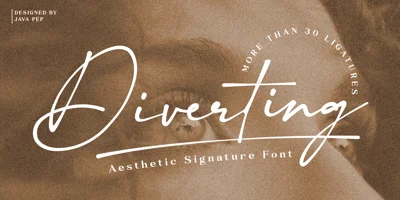
Diverting Font
Diverting Font is perfect for entertainment venue branding, comedy club marketing, amusement park signage, recreational activity promotions, diversion therapy materials, and engaging entertainment campaigns. Its captivating character makes it ideal for entertainment companies, recreational facilities, comedy performers, leisure activity organizers, and any application requiring attention-grabbing typography that conveys entertainment value, engaging diversion, and the irresistible appeal of fun activities that capture attention and provide delightful distraction.
Diverting Font is exciting because it embodies the captivating power and engaging appeal of quality entertainment through dynamically crafted letterforms that redirect attention and create compelling visual interest. Its diverting proportions and entertainment-inspired details reflect the magnetic pull of engaging activities and the satisfying redirection of focus toward enjoyable experiences, making it perfect for brands seeking to capture audience attention and provide meaningful diversion. The font's diverting character transforms communications into invitations to engaging entertainment.
Diverting Font family includes attention-capturing weight variations typically featuring Light, Regular, Medium, and Bold options with engaging styling that maintains entertainment authenticity. The family often incorporates entertainment symbols, diversion elements, and recreational characters designed for leisure applications, providing designers with comprehensive tools for creating authentic, entertainment-focused typographic compositions.
When selecting entertainment diversion typography solutions, Diverting Font represents an exceptional choice for recreational and entertainment projects. This captivating typeface brings instant entertainment authenticity to any design, making it invaluable for amusement venues, entertainment companies, and recreational organizations celebrating engaging diversion. Whether you're developing entertainment venue branding, creating recreational activity promotions, or designing engaging marketing campaigns, Diverting Font provides the captivating appeal and entertainment authenticity essential for capturing audience attention in today's distraction-rich entertainment marketplace.